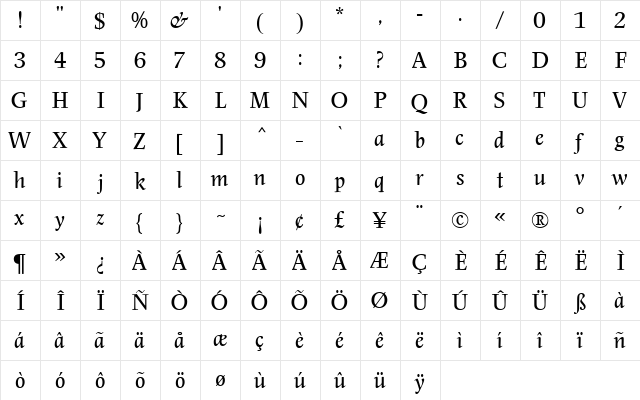
Sully Jonquieres MN Regular
Design Context for Sully Jonquieres MN Typeface
Sully Jonquieres MN takes a measured approach to typography — its balanced proportions and neutral character make it a reliable workhorse for both digital and print work.